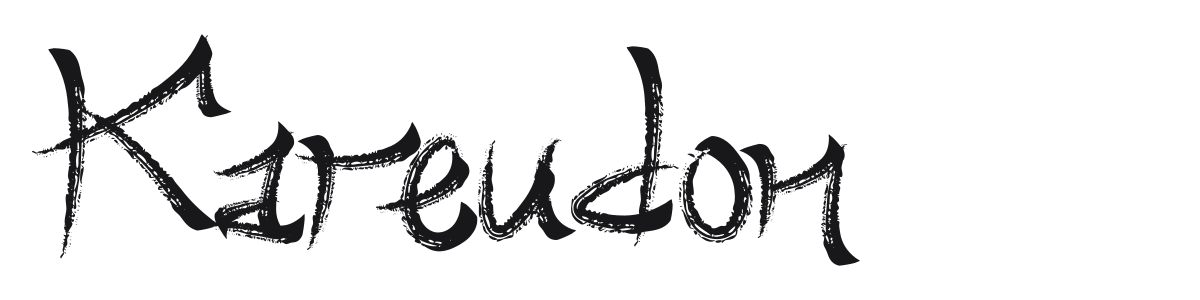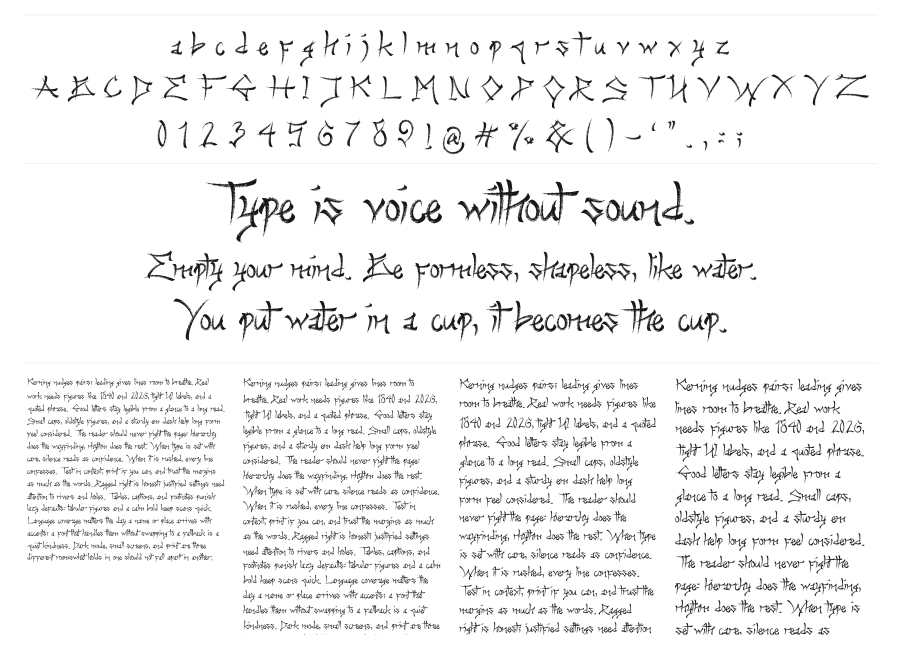
Kareudon
Kareudon is a raw brush script with deep East Asian calligraphic roots and a gritty, textured ink quality. Extreme stroke contrast, frayed bristle edges, and angular sword-like terminals give each character a fierce, kinetic energy. It reads best at large sizes where the ink texture and dramatic strokes can fully register.